Five Favorite Fonts from the New A2-Type Foundry
The London-based design studio A2/SW/HK has recently launched its own type foundry called A2-Type. The 15 fonts in the initial specimen book are largely derived from design projects that partners Scott Williams and Henrik Kubel have done since they formed the studio a decade ago. (The exceptions are A2 Klampenborg, designed by Kubel in 1997, and A2 Battersea, which Kubel created in 1999.)
Alert readers might recognize A2 Zadie which began life as lettering for the book jacket of On Beauty by Zadie Smith (New York: Penguin Press, 2005) or A2 CWM which was originally made for the cover of the catalog that accompanied the 2008 exhibition “Cold War Modern, 1945–1970” at the V&A in London.
The 15 fonts cover a wide range of styles from 19th-century grots to delicate didones. There’s even a set of fleurons and a typewriter font named A2 Flowers and A2 Typewriter, respectively—what else are you going to call them? The former is an odd mix of decorative ornaments reminiscent of the asterisks and snowflakes of ITC Zapf Dingbats, Art Deco numerals, Bodoni numerals, pointing fists and calligraphic squiggles. The latter is based on an Olivetti Lettera 22 typewriter face. The sans serifs include Grot 10, Klampenborg, Battersea, CWM, and Aveny-T, while the serif faces include CPH Tram (essentially a sans with tiny spur serifs as in Copperplate Gothic), A2 Impacto (a slab serif), FM (a chamfered slab serif), Monday (a transitional design in the English vernacular manner) and Vogue Floral (a slightly curly modern face).
After a few days of examining the specimen booklet, here are five of my favorites.
A2 Zadie Regular
A2 Zadie, which comes in regular (open) and solid flavors, is a Bantjesque-inflected Didone. That is, A2 has essentially taken a basic neoclassical armature and added on some lovely Edwardian tendrils inspired by a wrought-iron railing surrounding the Royal Army Medical College in London. Some of the hairline strokes normally found in such a typeface have been deleted giving A2 Zadie, especially in the open version, the effect of a stencil design. Other nice touches include the pinched stems of the I and T and the “kissing” crossbar on the H. The T suggests a weightlifter showing off his pecs. This is a typeface made for display where its delicacy can truly be appreciated. The small size character set shown in the specimen book does not do it justice.
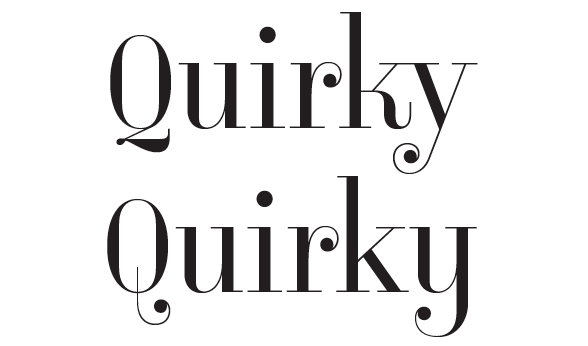
A2 Vogue Floral and A2 Vogue Floral Alternate
A2 Vogue Floral looks like Torino with curls sprinkled about here and there. For those who hate squiggles the alternate cut is more sober. Both are too light for text work, but would make good display companions to a Bodoni or Didot.
A2 FM Semibold, Regular, and Italic
The boringly named A2 FM is designed for text. It is a humanist slab serif in the vein of Scala or Whitman with an italic that is neither a sloped roman nor, fortunately, a “true” italic with calligraphic features. Both the roman and the italic have a pleasantly smart crispness that is the key to their success at small sizes but which are also revealed at display sizes. A2 FM comes in five weights and has old style figures to boot. (See additional images below to view A2 FM in text settings.)
A2 Grot 10 Bold
A2 Grot 10 Bold Italic
A2 Grot 10 is a redesign of a venerable grotesque from Stephenson & Blake with a more contemporary italic companion. I love the quirky 19th-century English grots but am less thrilled by this design as the italic is too calligraphic for my taste (see the f with its curling descender). The odd industrial quality of the old grots (like the r with its overly wide arm or the floppy ear on the g) is still evident in the roman, though. This is especially true of the bold weight where the subtle stroke contrast provides personality. Perhaps A2-Type will expand the family to include an extra bold or black weight.
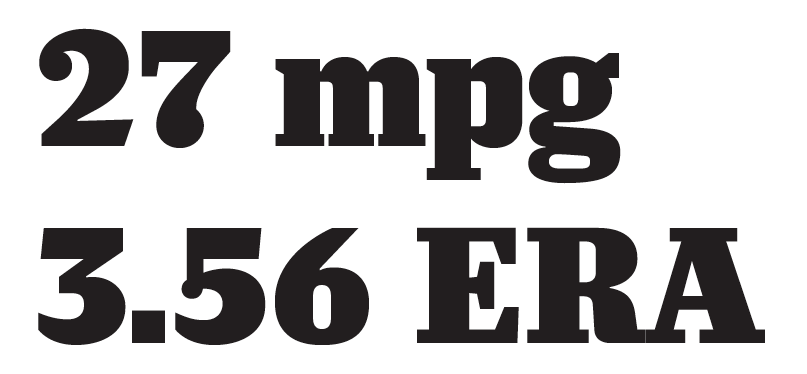
A2 Impacto
The one font in the specimen book that has such a robust weight is A2 Impacto. This slab serif is decidedly contemporary in feeling with some distinctive characters that are beautiful rather than irritating. It’s a rare font whose numerals overshadow its letters, but A2 Impacto is one such instance. The 2, 3, 5 and 7 are especially strong and lovely. The typeface should harmonize well with A2 FM.
A2 Danmark Bold
A2 Danmark grew out of a design for celebratory stamps for the Louisiana Museum of Modern Art in Denmark. It is a stencil face with sharp slab serifs and well defined stroke contrast. Several characters have ball terminals that link it to neoclassical faces. The K with its ogee-curved leg, Q with its dagger-like tail, a with its flat top and g with an open-ended loop provide a spark of freshness. Although the specimen says the face is ideal for text, this is emphatically a display font.
Surely others will surely prefer some that I have ignored to those I have highlighted, but nonetheless, A2-Type has made a notable splash with their debut collection of fonts. The specimen itself is an understated gem as well. The white letterpress-printed cover may be a bit dull, but the pink-toned paper inside provides a delicious jolt and serves as a warm background for the reductive design sensibilities of Williams and Kubel.
A2 FM Regular in text setting
A2 FM Italic in text setting